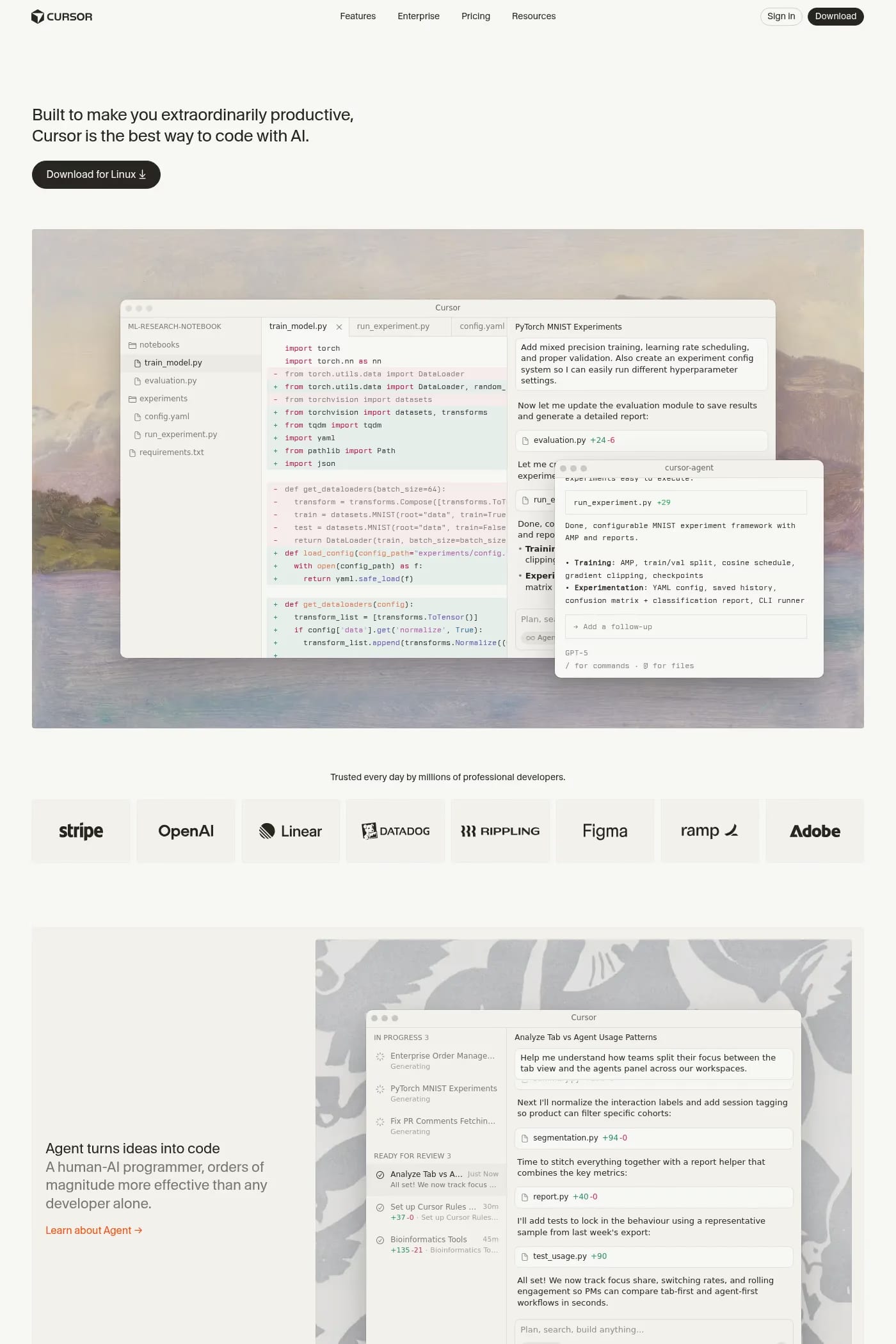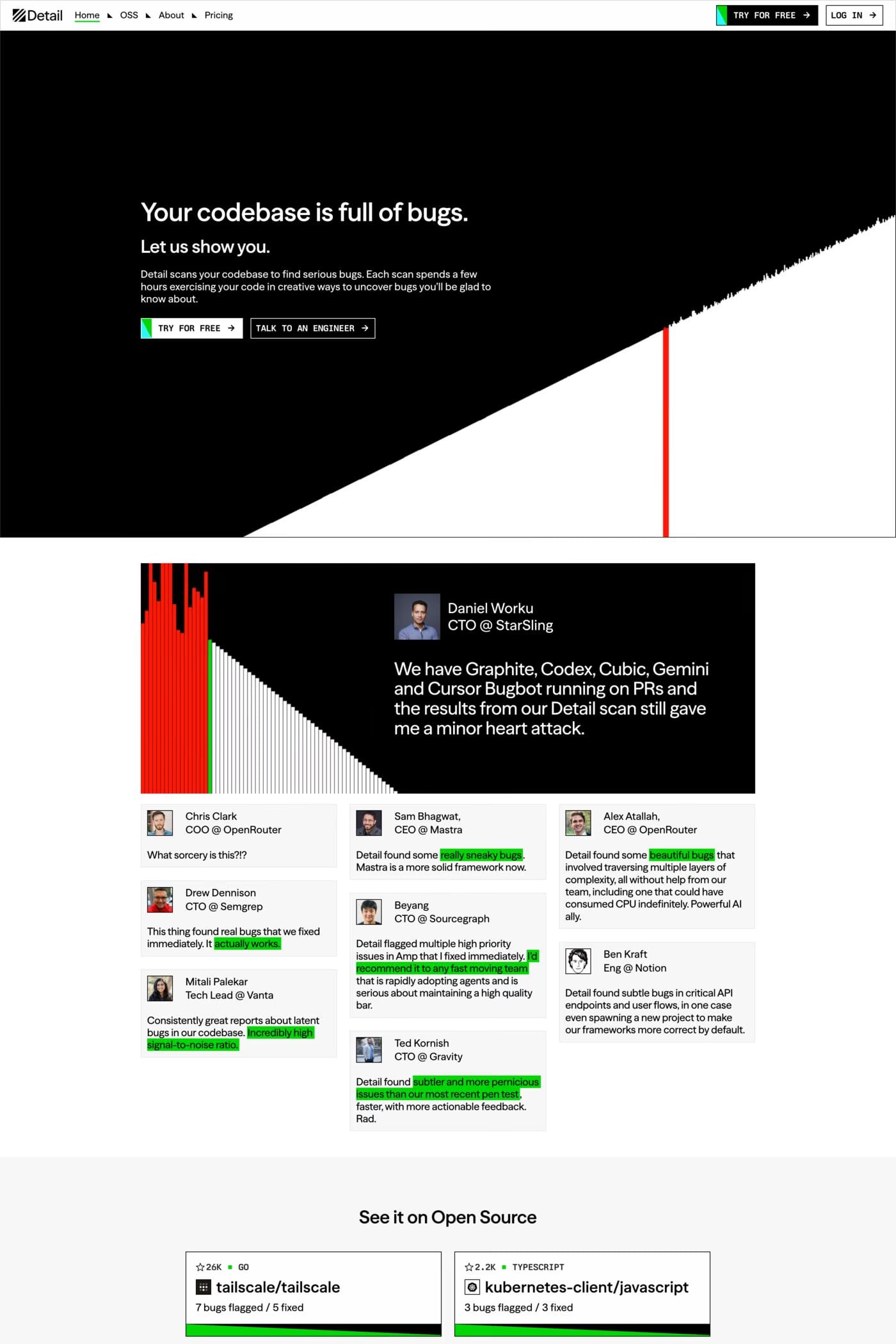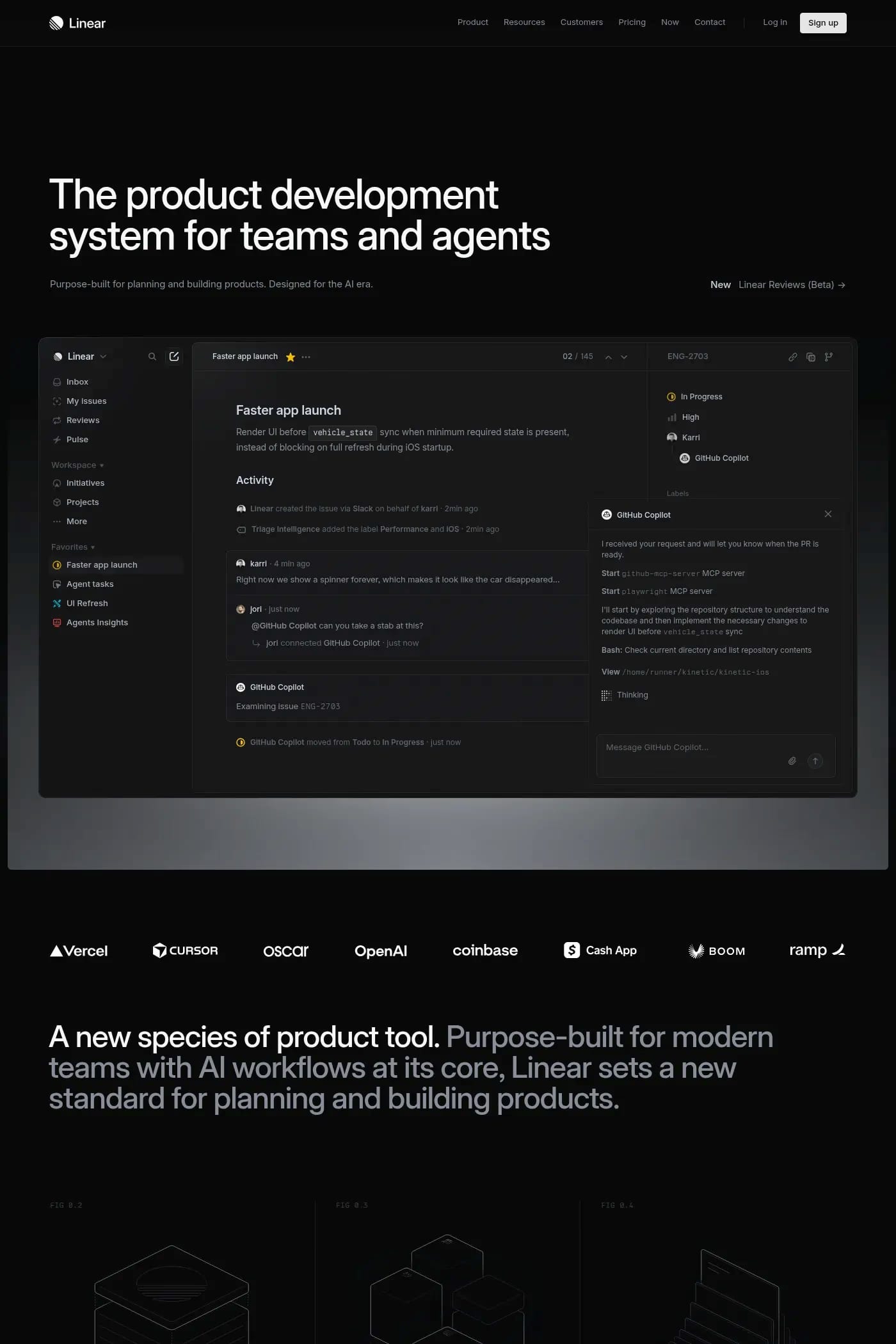
Berkeley Mono™ is a love letter to the golden era of computing. The era that gave rise to a generation of people who celebrated automation and reveled in the joy of computing, when transistors replaced cogs, and machine-readable typefaces were developed, for when humans and machines truly interfaced on an unprecedented scale.
A1 features 6 websites using Berkeley Mono, including Interfaces, Linear, and Detail. They lean towards Animated, Minimal, and Dark design styles, and they’re most often built with Next.js and Framer.